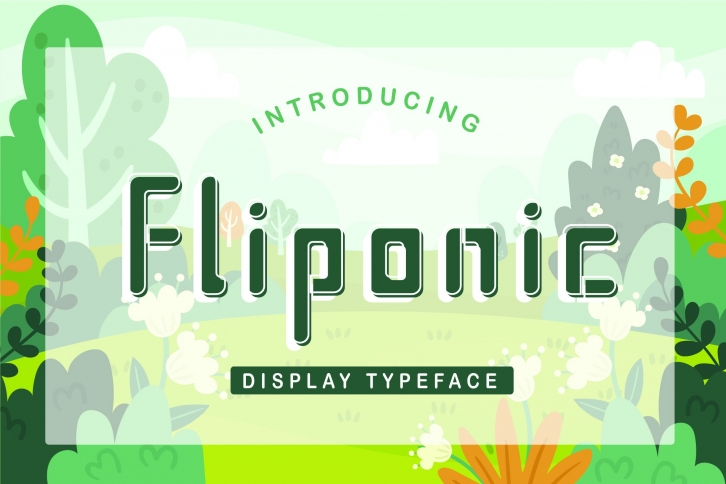
Fliponic is a playful display typeface with an urban style. It will look so beautiful on invitations, greeting cards, branding materials, business cards, quotes, posters, and more!